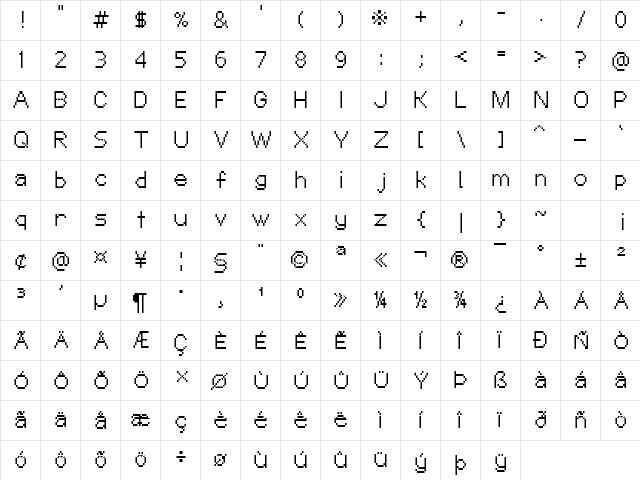
Honey Room Regular
| Foundry | James Montagna |
| Designer | JAMES MONTAGNA |
Design Context for Honey Room Typeface
Honey Room offers clean, dependable letterforms without strong stylistic allegiance, making it a practical choice for designers who need flexibility.